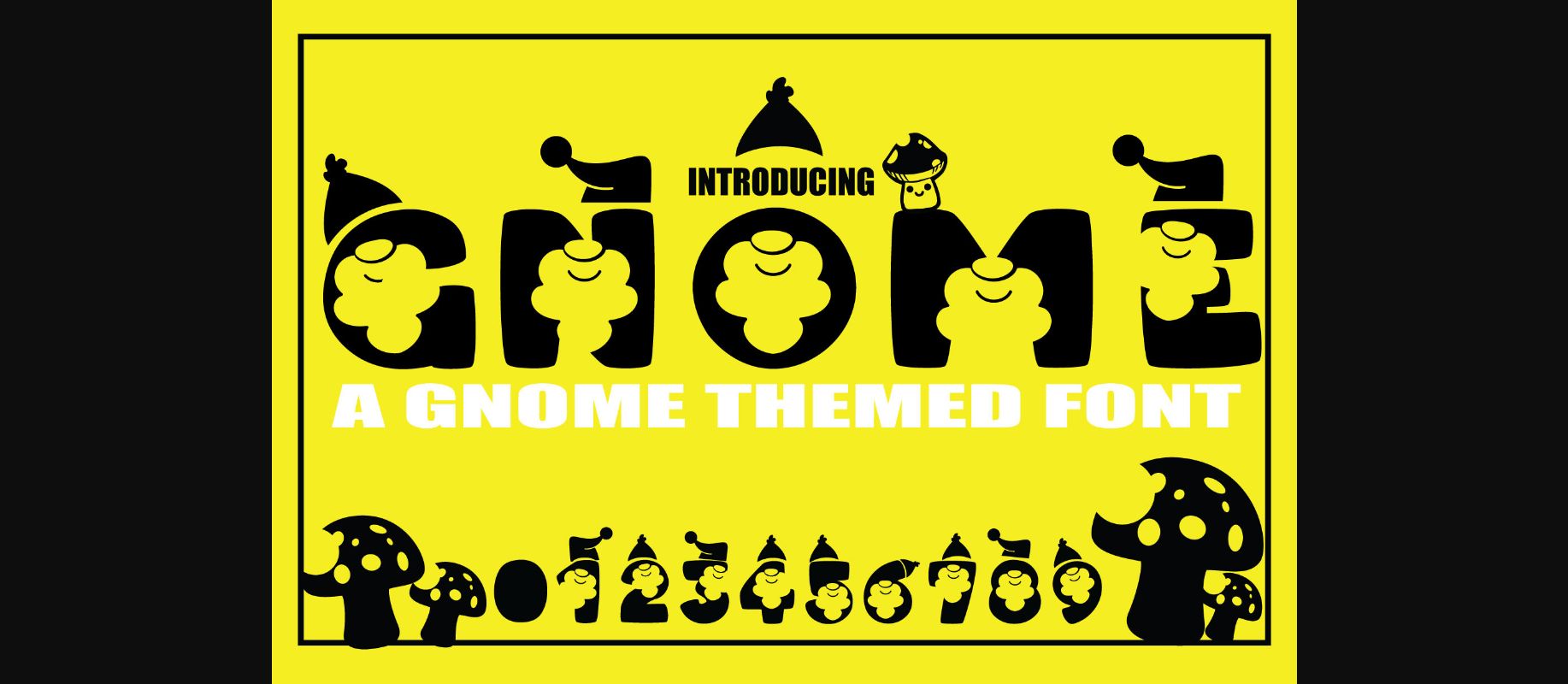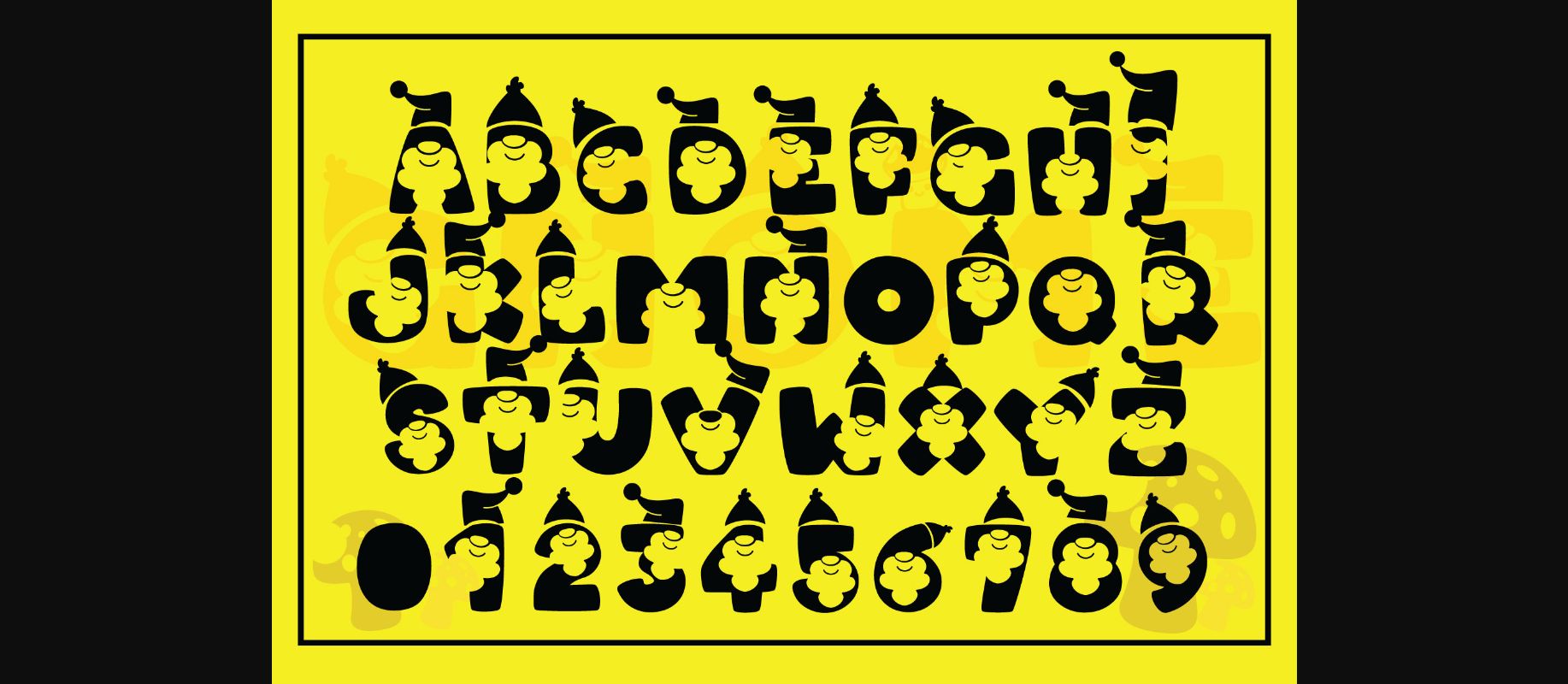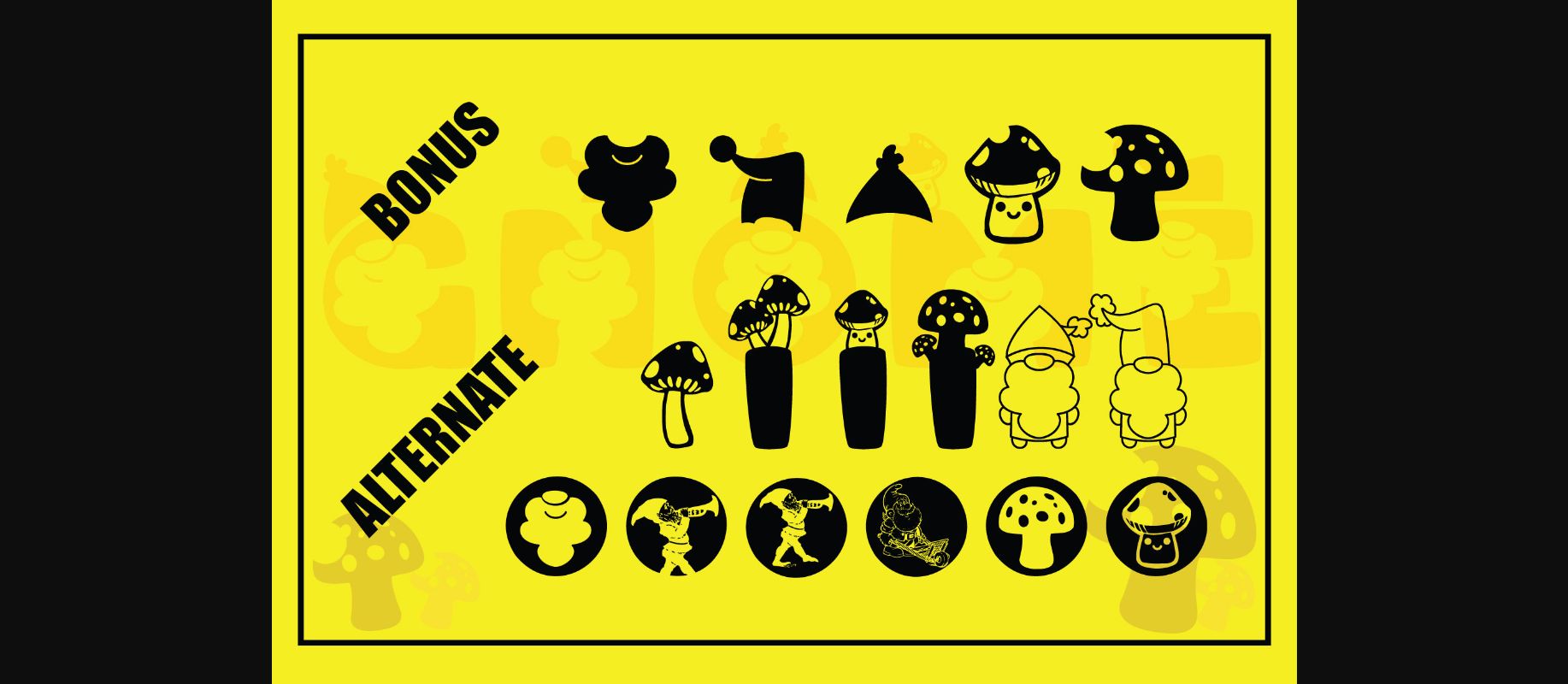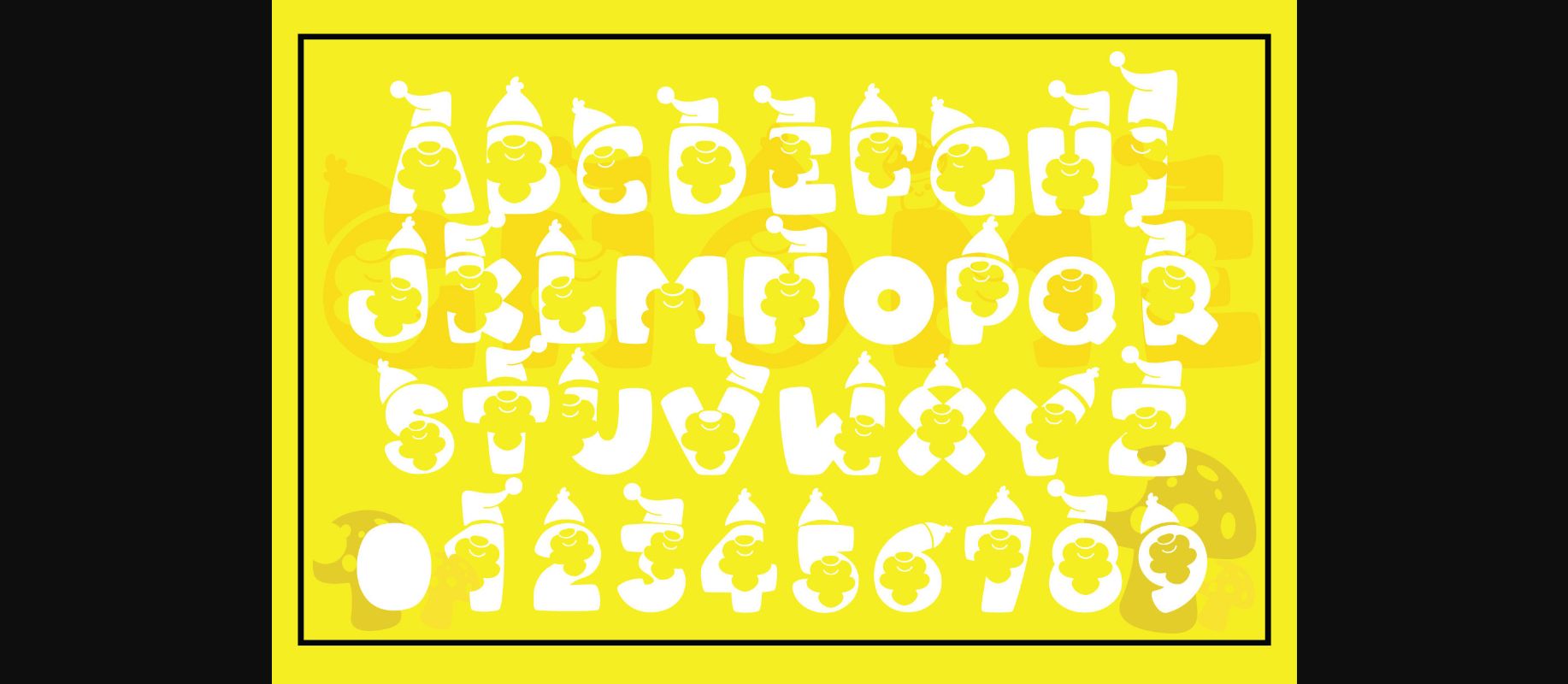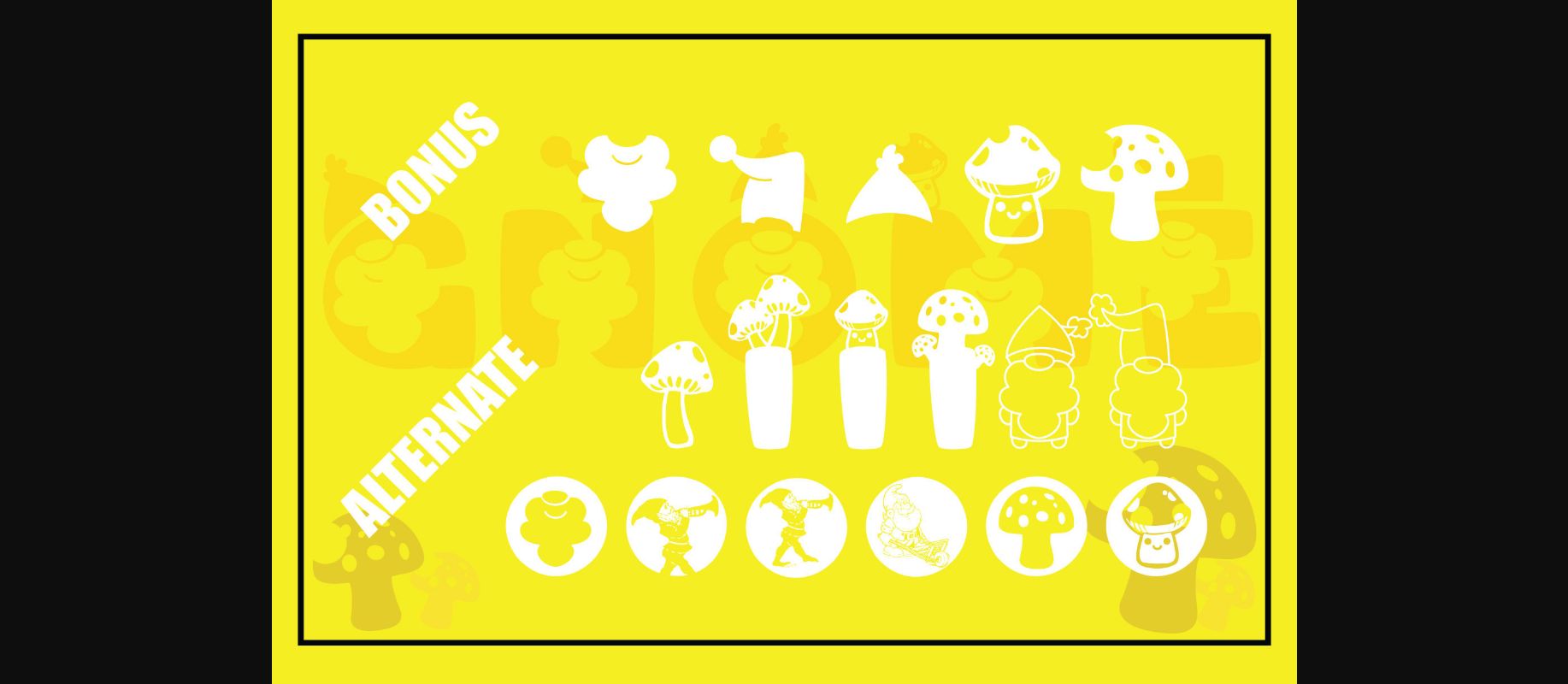
Gnome Font
About Gnome Font
Gnome is a unique and incredibly cool decorative font. It can be used for various design ideas, particularly those related to children, cartoons, and games. This font is PUA encoded which means you can access all of the glyphs and swashes with ease!